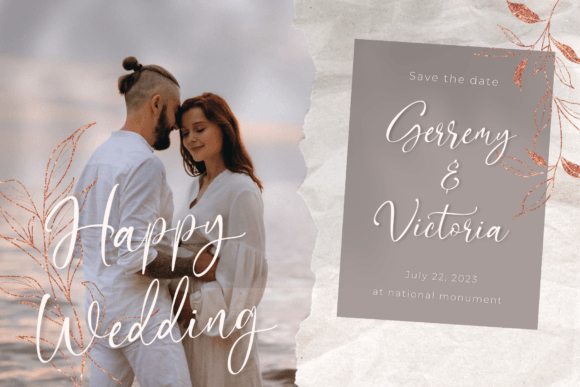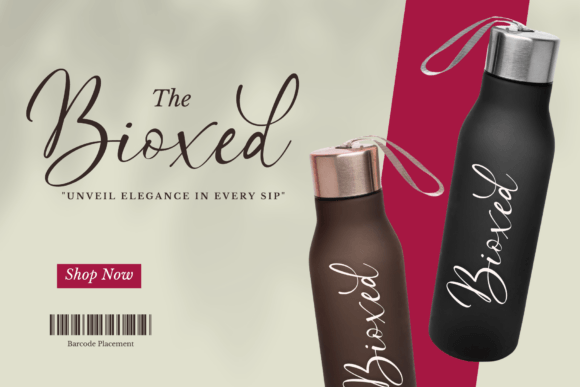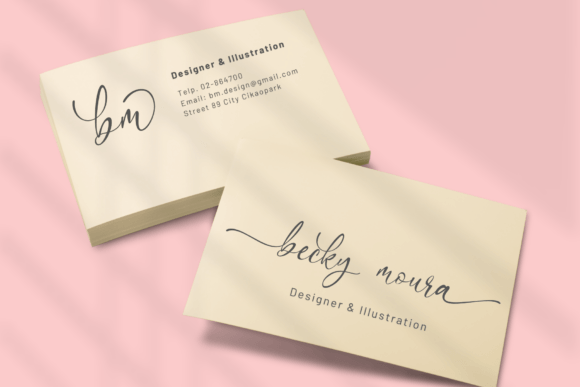
Introduction to Rosegoldia Font
β€œRosegoldia” is a modern script font that blends elegance with contemporary style.
With its sleek letterforms and graceful curves, it adds a touch of sophistication to your designs Perfect for branding, logos, and any project that requires a modern script font, β€œRosegoldia” brings a sense of refined beauty to your work.
Rosegoldia Font offers exceptional quality and versatility, making it a valuable addition to your design toolkit. Whether you’re creating for personal projects or commercial use, Rosegoldia Font delivers professional results.